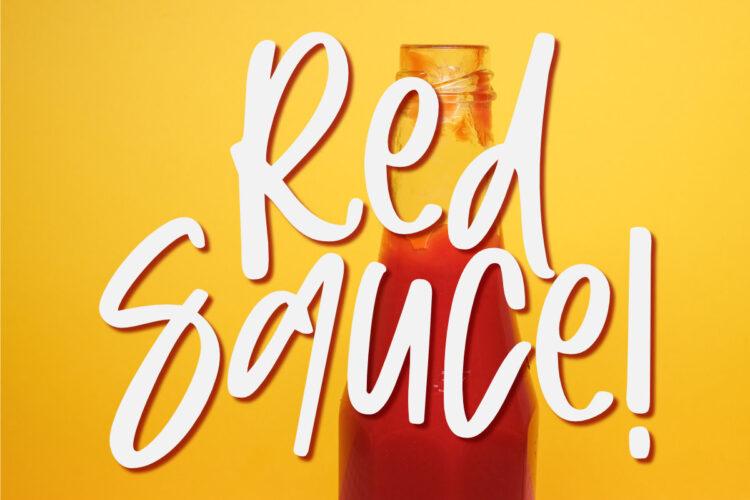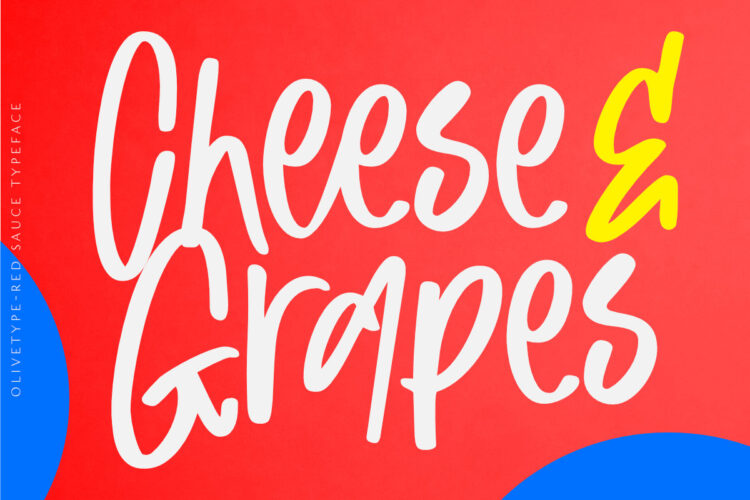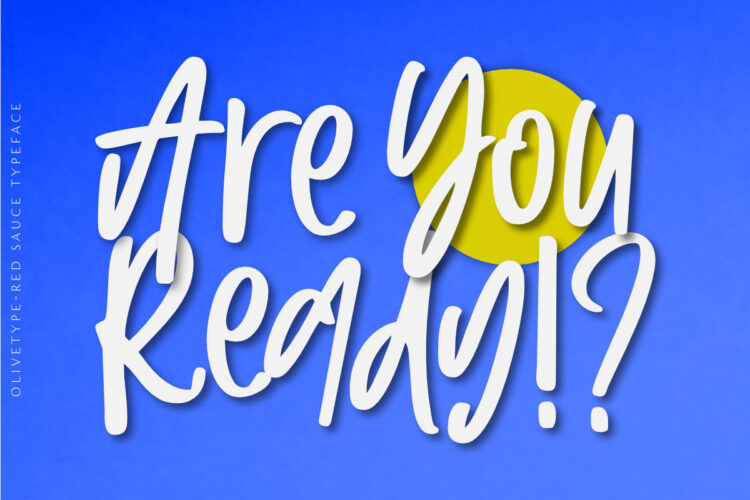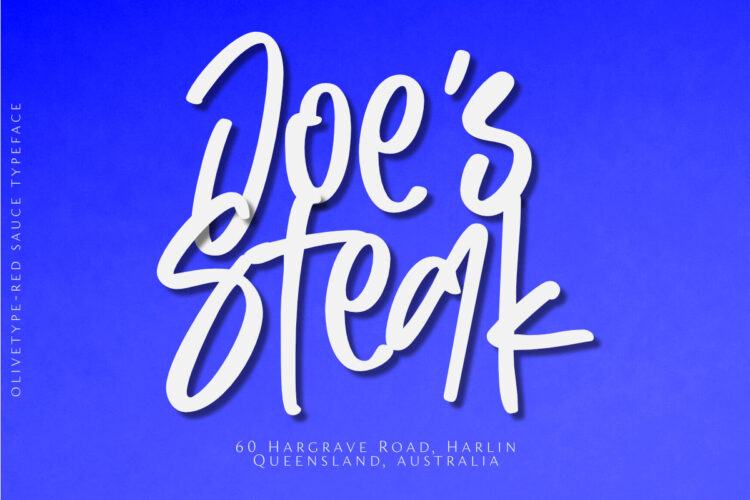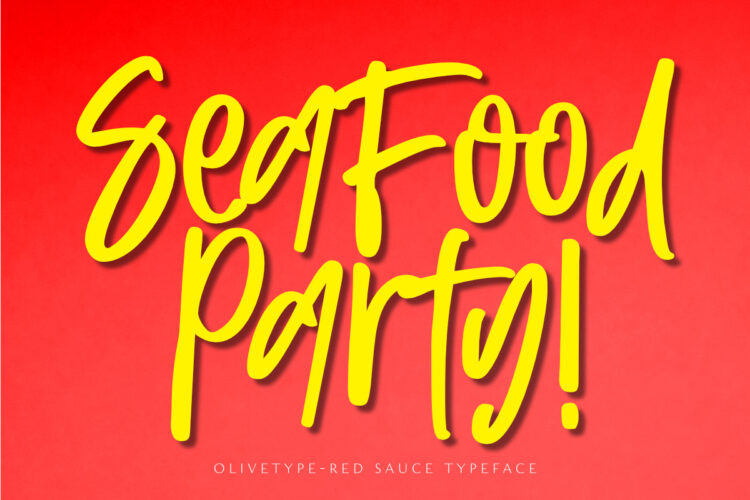
It’s time to get down and red. Freshly released, Red Sauce is a fun and stylish typeface with a cool and playful vibe to it.. Use our new typeface to give your design the style it deserves. From badges and logos to posters and t-shirts, Red Sauce has you covered.
- Basic Latin Uppercase and Lowercase
- Ligatures